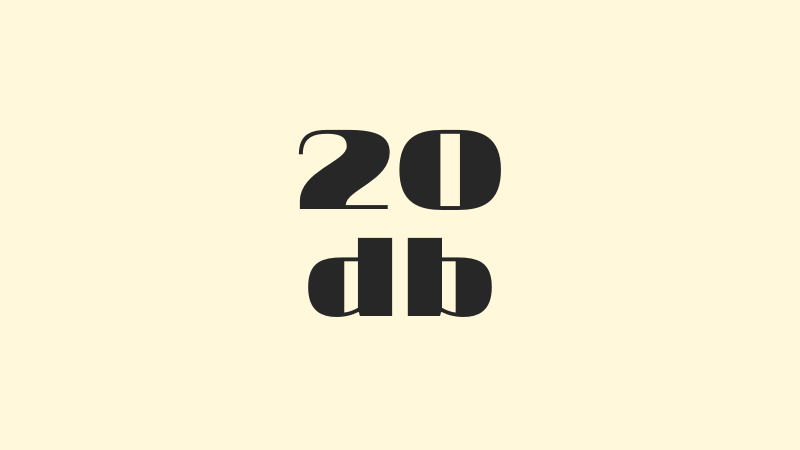
83 Best Retro Fonts On Canva For Free
You’ve landed on the right article because we’re about to uncover all the best retro fonts you can find on Canva for free. That’s right, you don’t have to subscribe to the Canva Pro plan for the best Canva fonts.
But you may have a question: Why are these the best retro fonts on Canva? I would say they are the best Canva fonts based on the following criteria:
- Interesting
- Aesthetically pleasing
- Distinctively retro
- Readable
This list is a great guideline for just about any font, for example, Halloween fonts may need to be ghostly, but they still have to be readable or else you can’t communicate the right message.
Want to dive deep into what these fonts are about? Let’s get to it!
Best Free Canva Retro Fonts
I’ve handpicked the latest best retro fonts you can get on Canva for free based on my own judgment and thought process while using them in my designs.
But there are so many!
I agree — Relax, I’ve done the scrolling and filtering for you. Just check out these Retro Font Canva posters so you don’t have to do endless scrolling to find the best ones in the Canva font list.
Ready to do the scrolling? Hang tight, this is a long one…
1. 20db
The 20db font is a spectacular addition to any designer’s toolkit. This unique style is defined by its round, geometric design with smooth edges, presenting a modern appeal that effortlessly straddles the line between playful and professional.
Despite its simplicity, the 20db font provides the needed touch of elegance and eye-catching design element to any project. It stands out in social media posts or logos due to its neat look, making it a perfect choice for brand values emphasizing a modern feel and uniqueness.
Its bold display font, whether in large titles or body text, grabs attention while maintaining readability. This makes 20db a great choice for any design project, whether you are printing on Canva or not.
2. 29LT Arapix
29LT Arapix is an digital font with a unique style that stands out. Its unique lettering, which combines thin strokes with sharp edges, exudes sophistication and modern elegance.
Perfect for projects requiring a touch of class or similar to a vintage font style, it is versatile enough for various uses from body text to headlines.
ts characters are designed with a delicate balance between bold and thin lines, making it eye-catching in all the right ways.
29LT Arapix is an excellent choice for designers who want to infuse their work with an aesthetically pleasing and unique typeface that enhances visual design.
3. Adam Script
Adam Script is the epitome of casual sophistication. This handwritten calligraphy font exudes a friendly and welcoming vibe, making it perfect for personal notes, wedding invitations, and social media graphics.
With its unique lettering and elegant flow, it brings a personal touch and a sense of intimacy to any design. While it maintains a distinctive handwritten feel, it is still sharp and clear, even in smaller sizes.
With its distinctive curves and thin strokes, Adam Script adds a touch of elegance and a unique look to your designs, embodying both modern and vintage font style.
4. Agitaciya
When you need a font that makes a bold statement, Agitaciya is the way to go. With its robust, block-like characters, this font holds a commanding presence that is perfect for headlines, banners, or any design project where you want the text to be the star.
It carries a retro design element, with its bold font adding the vibe of groovy Canva fonts to your projects. Its heavy lines and unique design make it perfect for adding a modern touch to vintage-inspired designs.
Despite its strong, bold characteristics, it remains remarkably readable, even at smaller sizes. Agitaciya, with its unique style and sharp edges, is perfect for achieving a modern look with a hint of old school charm.
5. Anton
Anton is a bold, all-caps sans-serif font, an ideal choice for designers looking to make a statement. Its robust and condensed lettering brings forth a strong and impactful vibe, suitable for headlines and logos.
Perfect for creating bold social media posts or adding flair to blog banners, Anton is one font that certainly catches your attention. Despite its strength, it maintains excellent readability, and its simplicity ensures it can pair well with a wide variety of other fonts. Try to pair this font with Moontime in Canva.
83. Yodnam
Navigating the expansive world of retro fonts on Canva, Yodnam stands as a testament to vintage font artistry. With its distinctive letterforms and intricate details, it transports users back to an era of typographic wonders.
Slotting perfectly among the groovy Canva fonts, Yodnam’s versatility shines in both contemporary and retro-themed projects. Recognized and revered as one of the best Canva fonts, Yodnam embodies the enchantment of typographic history while catering to modern design needs.